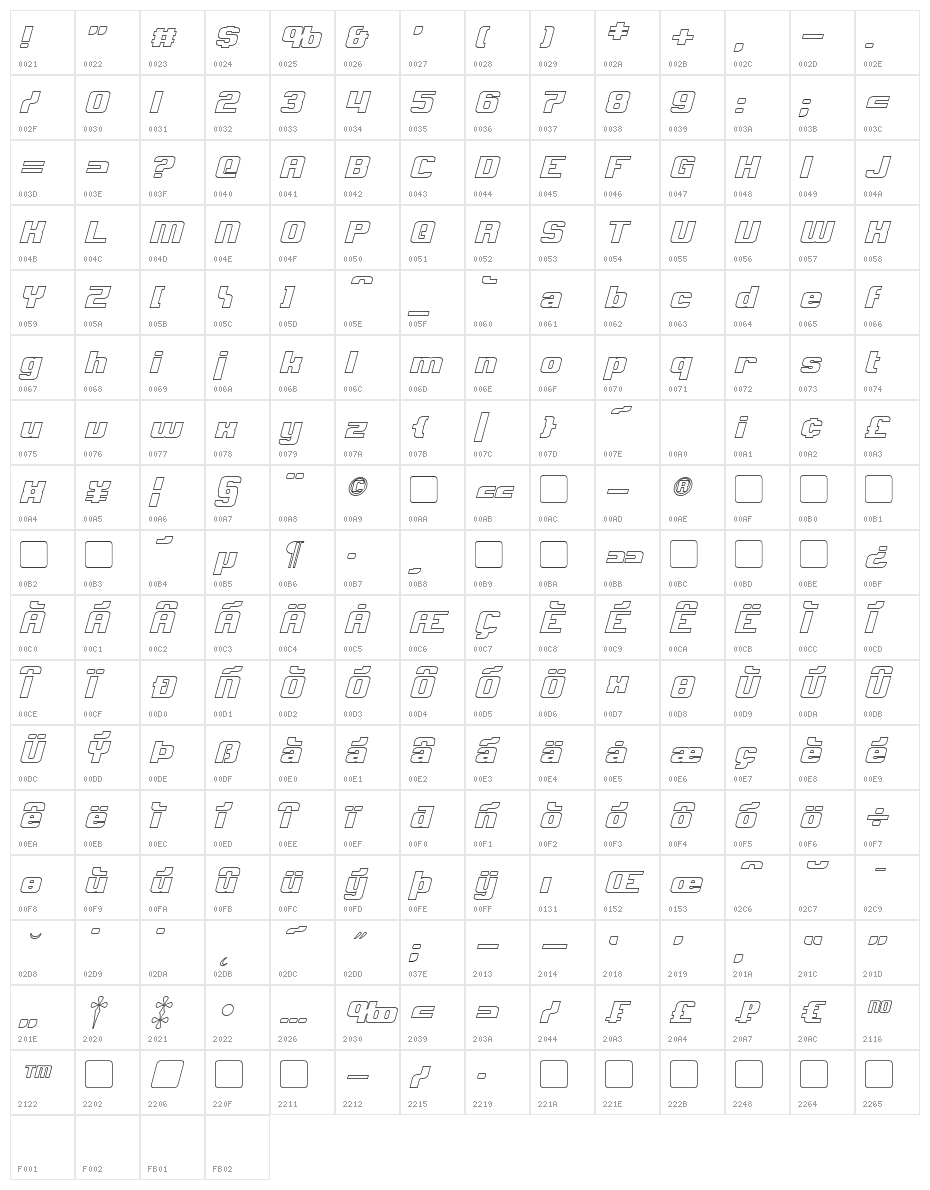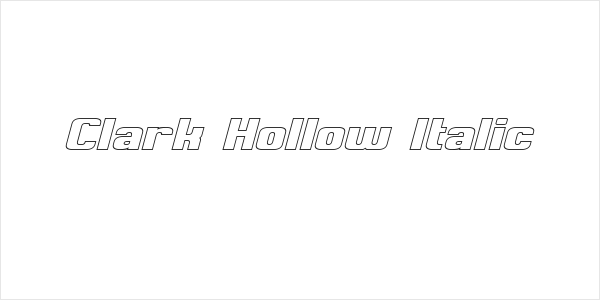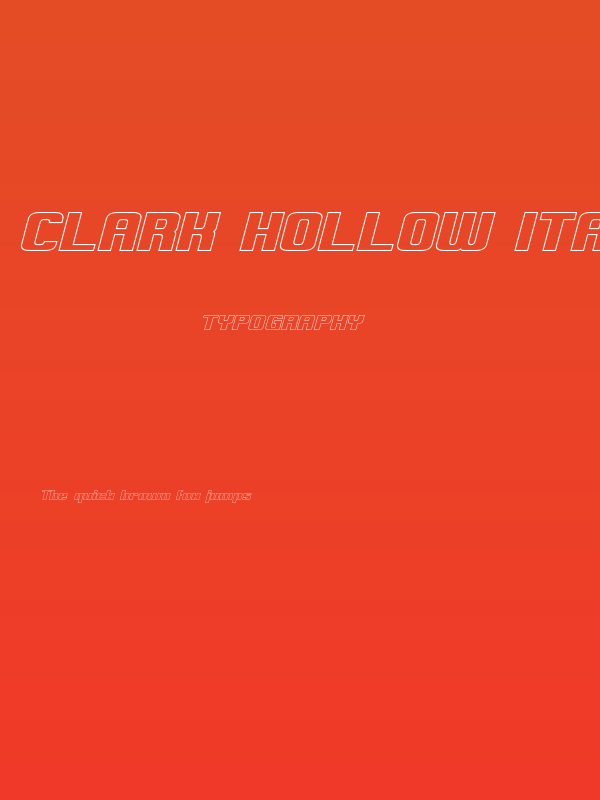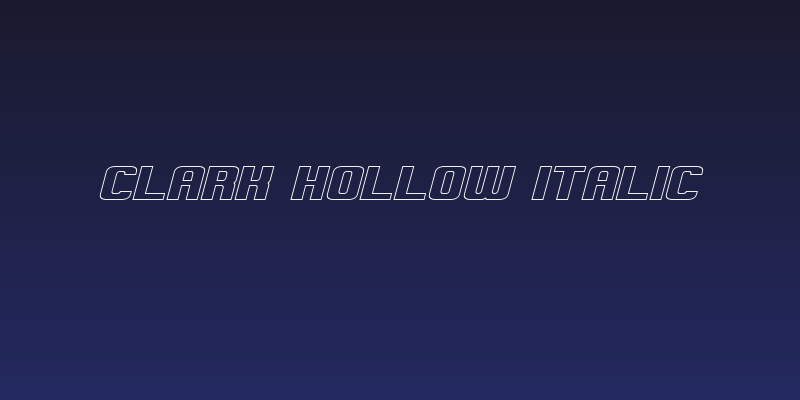
Clark Hollow Italic Font
Clark Hollow Italic Description
This font features a hollow, outlined design with a modern and sleek appearance. The characters are italicized, giving them a dynamic and forward-leaning posture. The uppercase and lowercase letters maintain a consistent style, with clean lines and geometric shapes. The numerals and special characters follow the same aesthetic, ensuring uniformity across all glyphs. The font's hollow nature makes it suitable for designs where a bold yet airy look is desired, allowing background elements to show through the characters.
| Proposed Projects | Ideal for futuristic designs, tech branding, posters, and digital media where a modern and airy look is desired. |